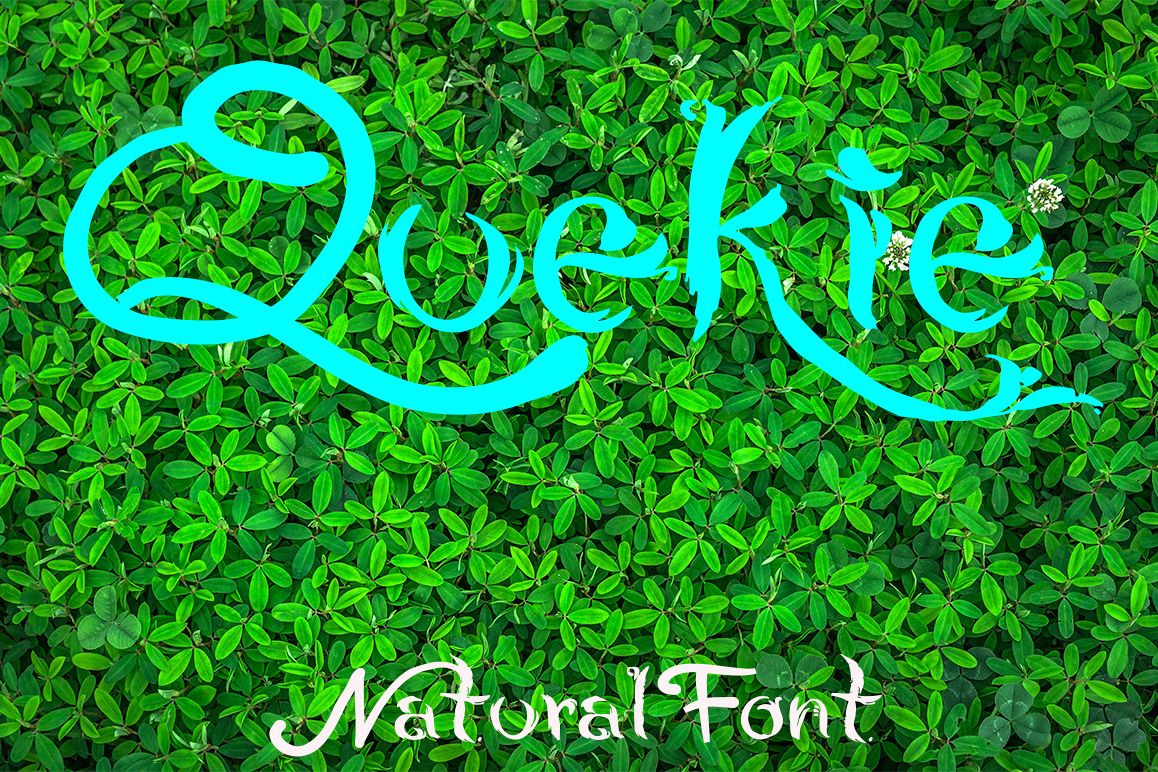
QUEKIE Natural Font
I am pleased to present to you my font. A unique font that looks like Natural Floating handwriting, suitable for your wedding invitations, greeting cards, party invitations, posters, birthday projects and more.Characters list:a-z IN LOWER CASE ONLYPreview ? 2 shows characters that are included in this fontNote: images from preview are NOT included in the archiveIf you have any questions for me, just chat me in direct message. I'll happy to answer! :)